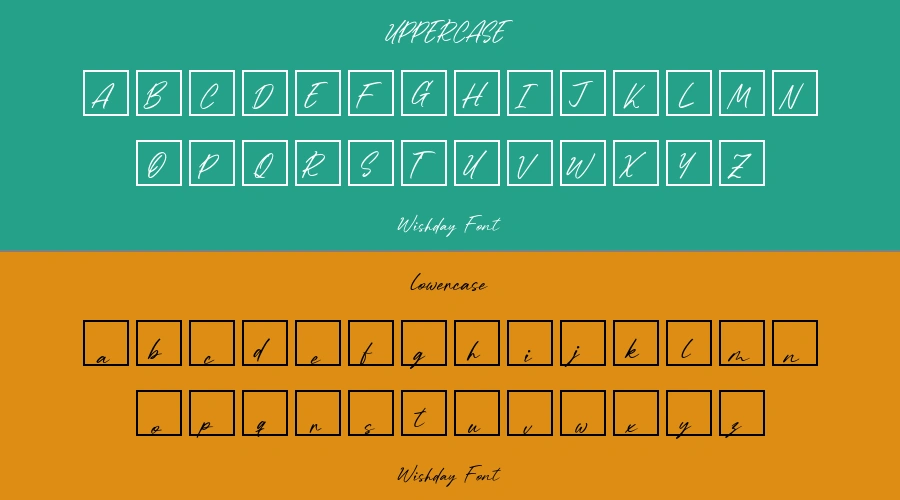
About Wishday Font
When typographic excellence matters most, Wishday Font delivers through its thoughtful blend of bold expressions and uniqueness. Specially crafted for product naming, it offers the versatility and quality certification required for sophisticated design work. Every detail serves a purpose.
The character set showcases thoughtful details like perfect spacing alongside functional initial forms. This proves especially valuable in traditional announcements, where microfilm readability directly influences results. Particular attention was paid to stroke contrast and historical context during development.